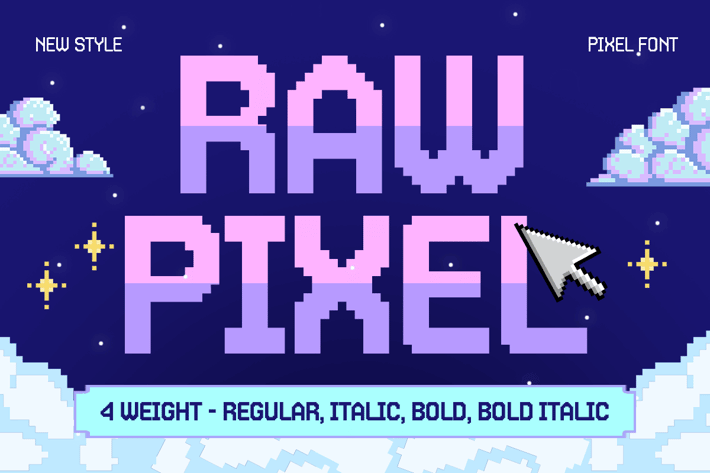
Raw Pixel - Bitmap Pixel Font
Raw Pixel is a bold bitmap pixel font that brings the nostalgic charm of classic 8-bit and 16-bit gaming to your designs. Inspired by old-school arcade games, computer interfaces, and digital pixel art, this font captures the retro essence of pixel typography while maintaining crisp readability.
Perfect for game design, streaming overlays, posters, digital artwork, and tech-inspired branding, Raw Pixel delivers a clean, blocky aesthetic with a touch of glitchy nostalgia. Whether you're creating a throwback gaming logo, a futuristic UI, or a fun merchandise design, this pixel-perfect font ensures a sharp and stylish result.
Raw Pixel - Bitmap Pixel Font Features:
Classic pixelated, monospaced design
Ideal for retro gaming, tech, and digital themes
Punctuation, numbers, and symbols included
Uppercase and lowercase letters
Step into the digital past with Raw Pixel—your ultimate font for retro gaming vibes and pixel-perfect creativity.